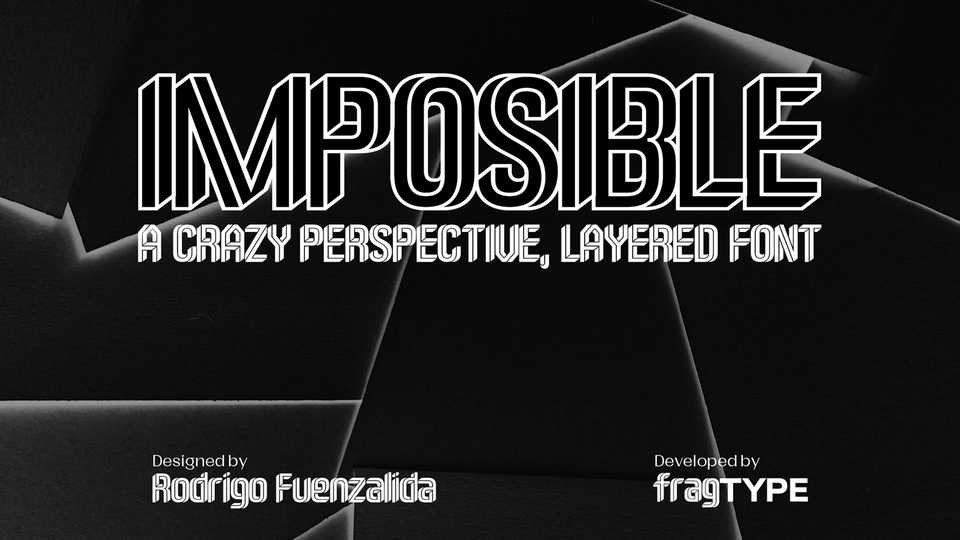
Download Imposible font, a crazy perspective layered typeface that came up as the result of 2021 36 Days of Type challenge. Imposible is ideal for display use, eye-catching posters abstract graphics and contemporary art.
Designer: Rodrigo Fuenzalida